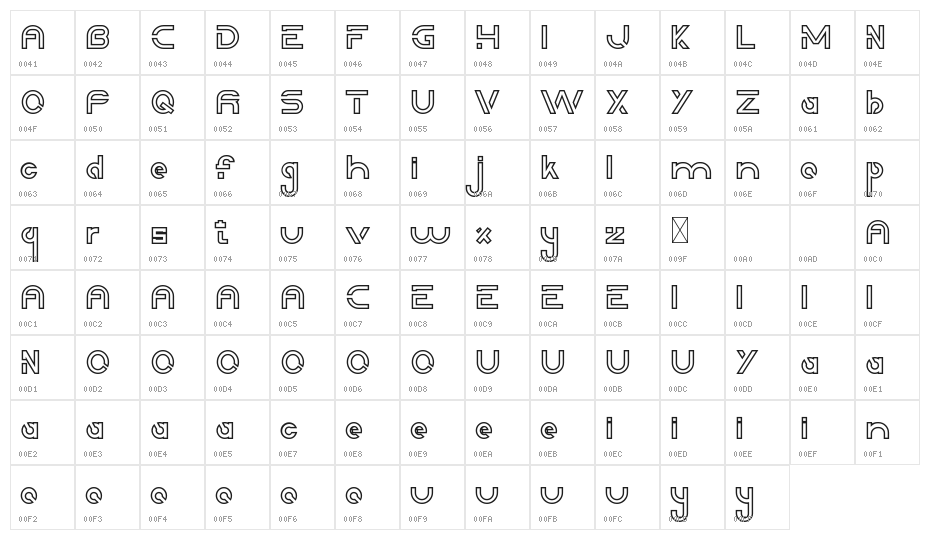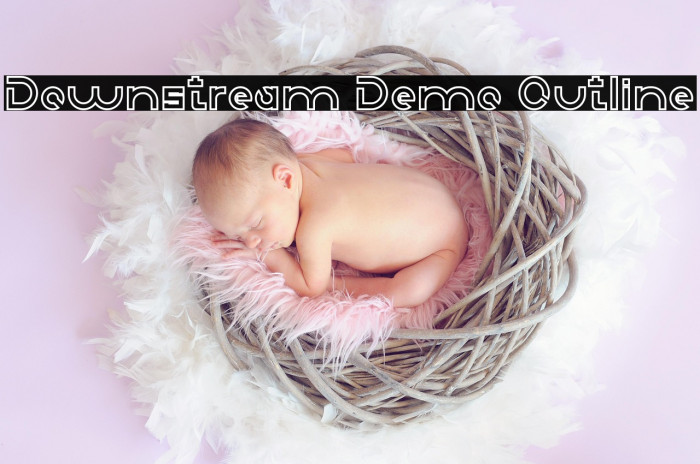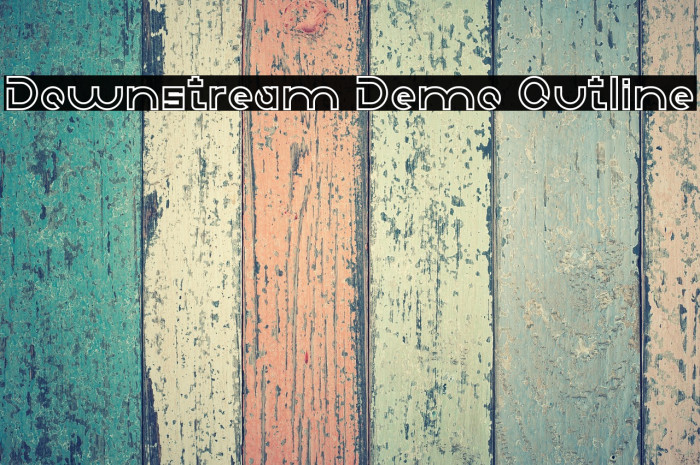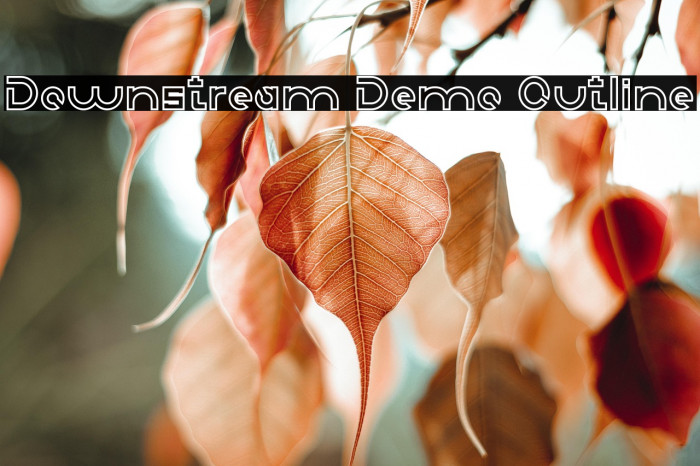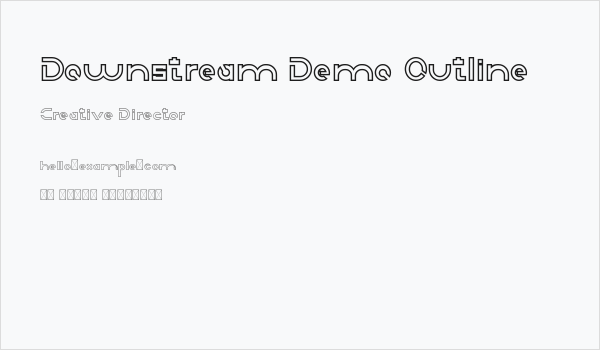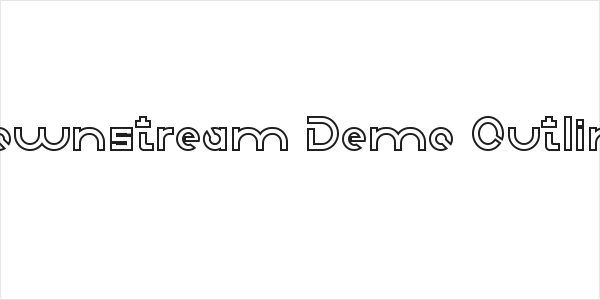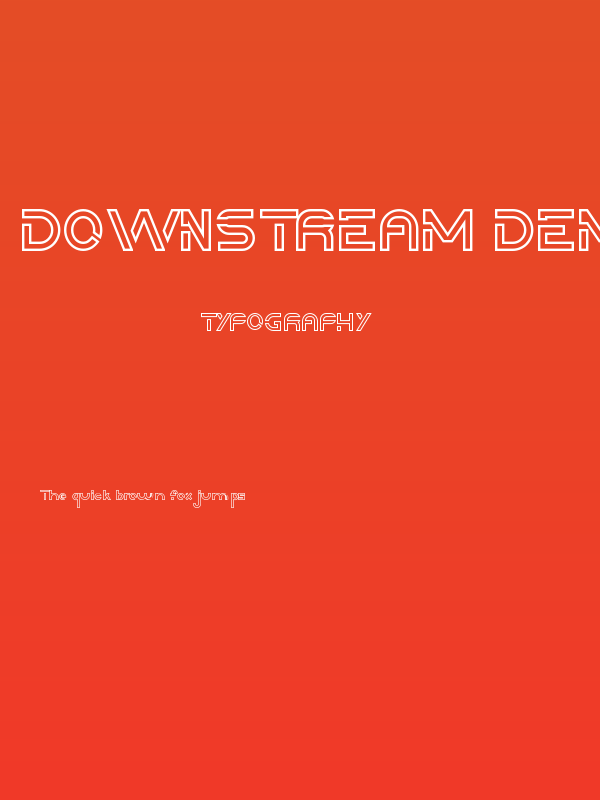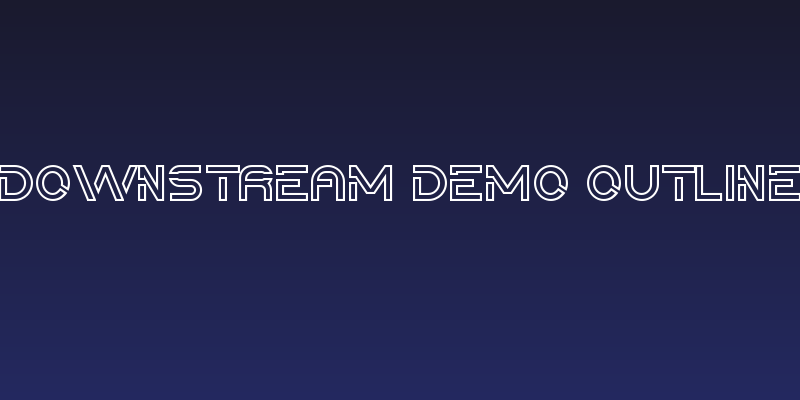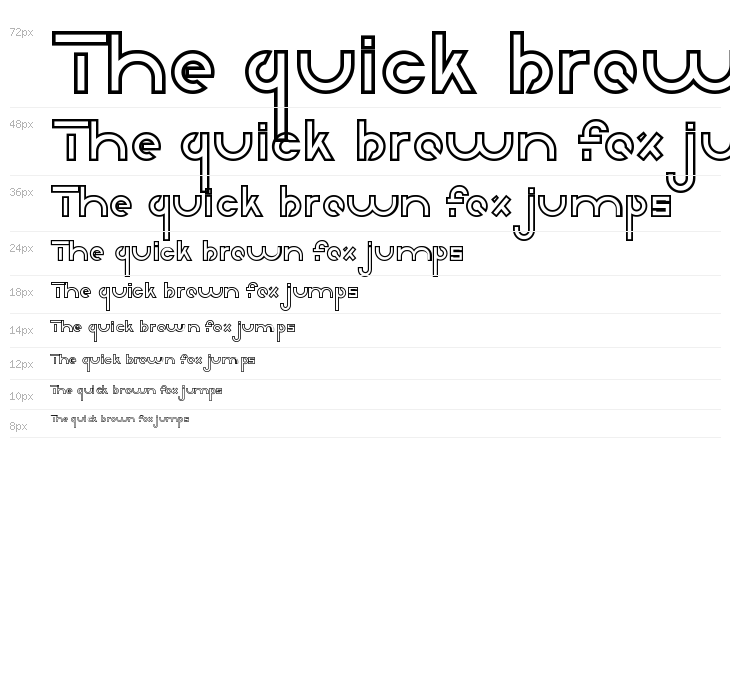
Downstream Demo Outline Font
Downstream Demo Outline Description
This font features a modern, geometric outline style with a distinct futuristic flair. The uppercase and lowercase letters are designed with clean, sharp lines that form a continuous loop, creating a sense of movement and fluidity. The characters are evenly spaced, maintaining a balanced and harmonious appearance. The font's unique structure makes it highly suitable for creative and innovative projects, where a bold and eye-catching typeface is desired. Its outline nature allows for versatility in design, as it can be filled or left as is for a striking effect.